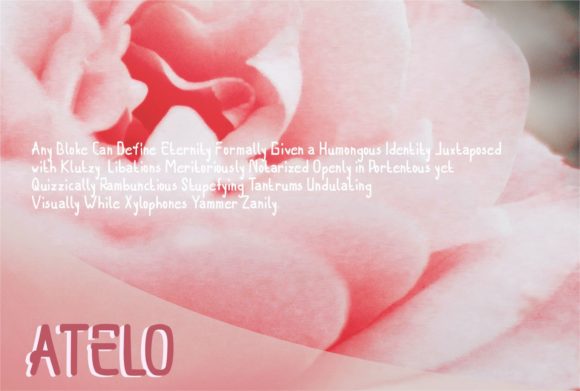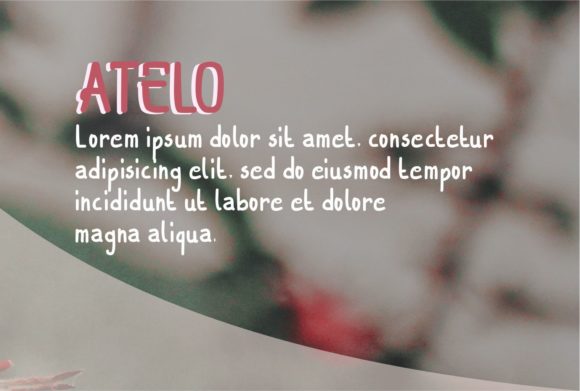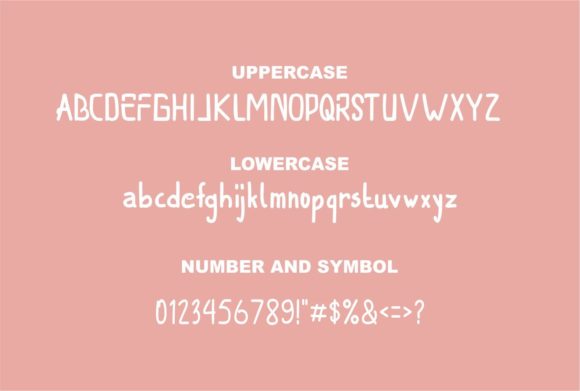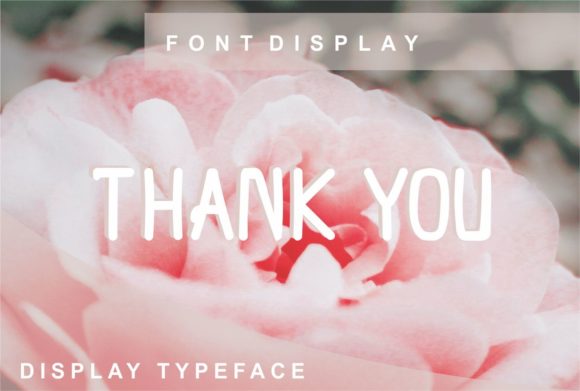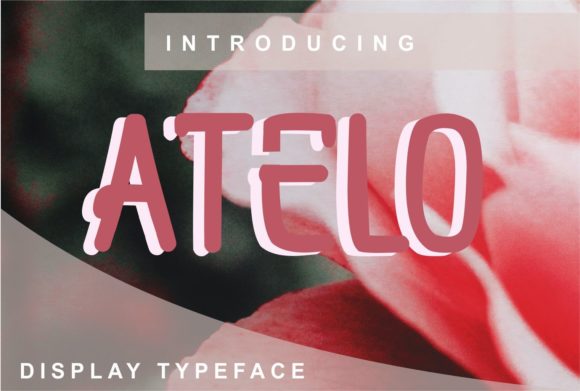
Introducing Atelo Font: The Ultimate Display Font for Creative Projects
Are you a designer, craftsperson, or creative looking for a versatile and clean display font to elevate your projects? Look no further than Atelo Font. This modern font is designed to be adaptable and easy to read, making it a valuable addition to any font library. In this article, we’ll explore the features and benefits of Atelo Font, and why it’s a must-have for anyone looking to enhance their creative work.
What is Atelo Font?
Atelo Font is a clean and adaptable display font that can be used for a wide range of creative projects. Its modern design and sleek lines make it perfect for headlines, titles, and other display text. The font is highly legible, even at small sizes, making it ideal for use in digital and print materials.
Key Features of Atelo Font
- Clean and Adaptable Design: Atelo Font features a clean and minimalist design that can be easily adapted to fit a variety of creative projects.
- High Legibility: The font is designed to be highly legible, even at small sizes, making it perfect for use in digital and print materials.
- Versatile: Atelo Font can be used for a wide range of creative projects, from branding and advertising to packaging and signage.
- Easily Customizable: The font is easily customizable, allowing you to adjust the lettering and spacing to fit your specific needs.
Benefits of Using Atelo Font
So why should you choose Atelo Font for your creative projects? Here are just a few benefits of using this versatile display font:
- Enhance Your Brand Identity: Atelo Font can help you create a strong and cohesive brand identity that will set you apart from the competition.
- Improve Readability: The font’s high legibility ensures that your message will be easily read and understood by your audience.
- Increase Creativity: Atelo Font’s clean and adaptable design makes it easy to experiment with different creative ideas and concepts.
- Save Time: With Atelo Font, you can quickly and easily create professional-looking text and graphics without spending hours designing from scratch.
Who Can Benefit from Atelo Font?
Atelo Font is a versatile display font that can be used by a wide range of creatives, including:
- Graphic Designers: Atelo Font is perfect for graphic designers looking for a clean and adaptable display font to use in their designs.
- Crafters: Crafters and makers can use Atelo Font to add a professional touch to their products and packaging.
- Marketing and Advertising Professionals: Atelo Font is ideal for marketing and advertising professionals looking for a font that can help them create eye-catching headlines and titles.
- Web Designers: Web designers can use Atelo Font to create clean and readable text on their websites and blogs.
- Experiment with Different Sizes and Styles: Atelo Font looks great in a variety of sizes and styles, so don’t be afraid to experiment and find the look that works best for your project.
- Pair with Other Fonts: Atelo Font pairs well with a variety of other fonts, so try combining it with other fonts to create a unique and interesting look.
- Use for Headlines and Titles: Atelo Font is perfect for use in headlines and titles, where its clean and adaptable design can really shine.
In conclusion, Atelo Font is a versatile and adaptable display font that can be used for a wide range of creative projects. Its clean and modern design, high legibility, and ease of use make it a valuable addition to any font library. Whether you’re a graphic designer, crafter, or marketing professional, Atelo Font is a great choice for anyone looking to enhance their creative work.